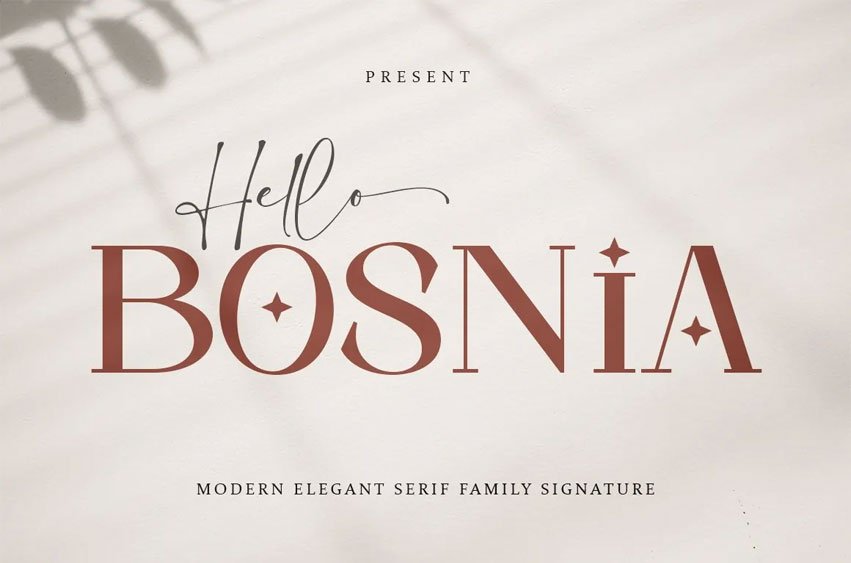
Hello Bosnia Font is a modern vintage (serif and script) font duo that is packaged in a modern and classy style, complete with your OpenType feature access to access a large selection of alternative fonts and bindings, the choice of fonts you like from large and small font variations to luxurious and elegant looks.
This font is perfect for branding projects, Logo design, Apparel Branding, packaging, magazine titles, advertisements, T-shirts, postcards and more. Hello Bonia is encoded with PUA Unicode, which allows full access to all additional characters without having to design any special software.